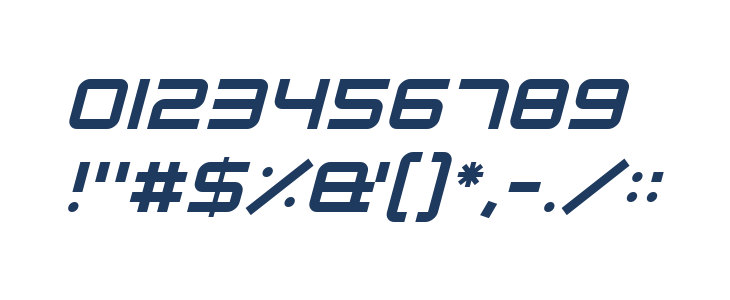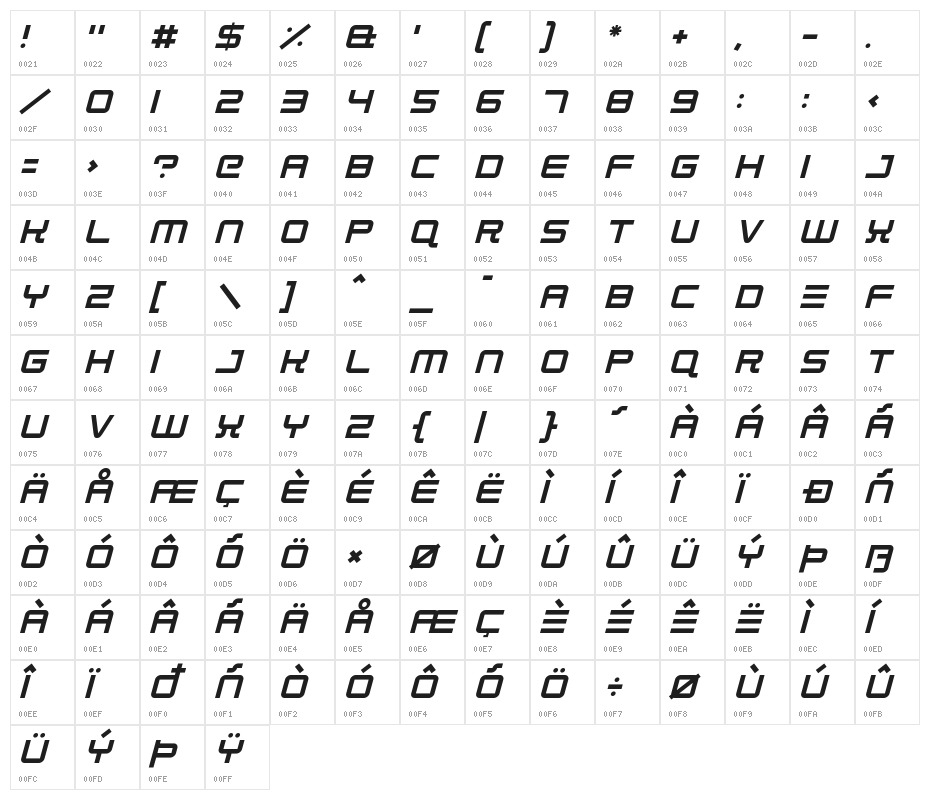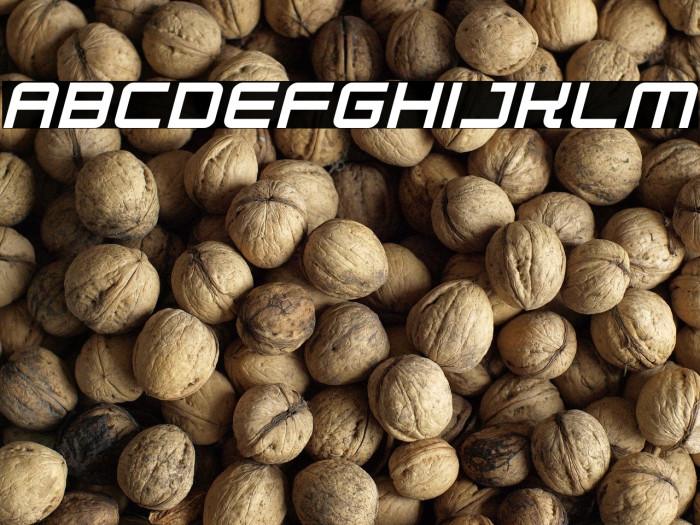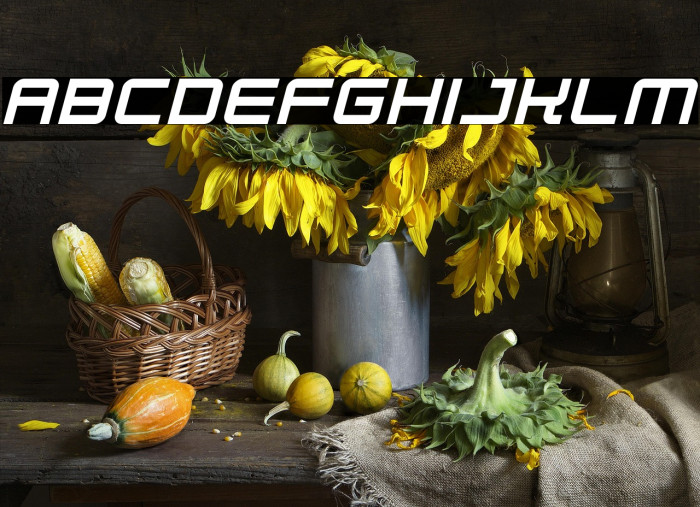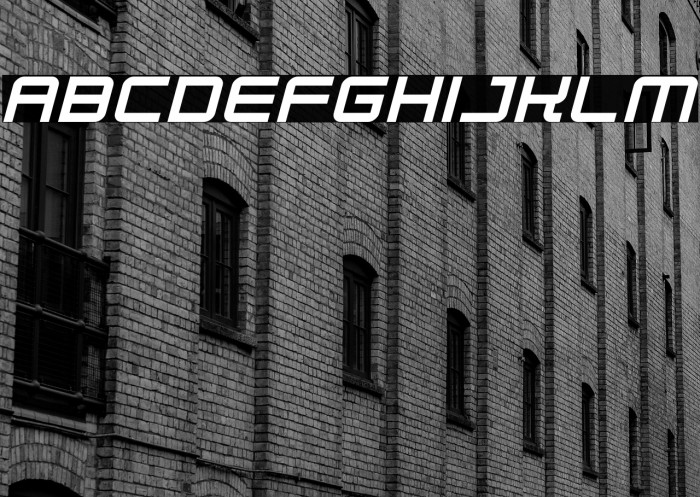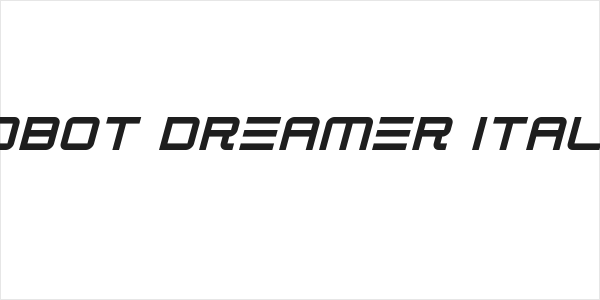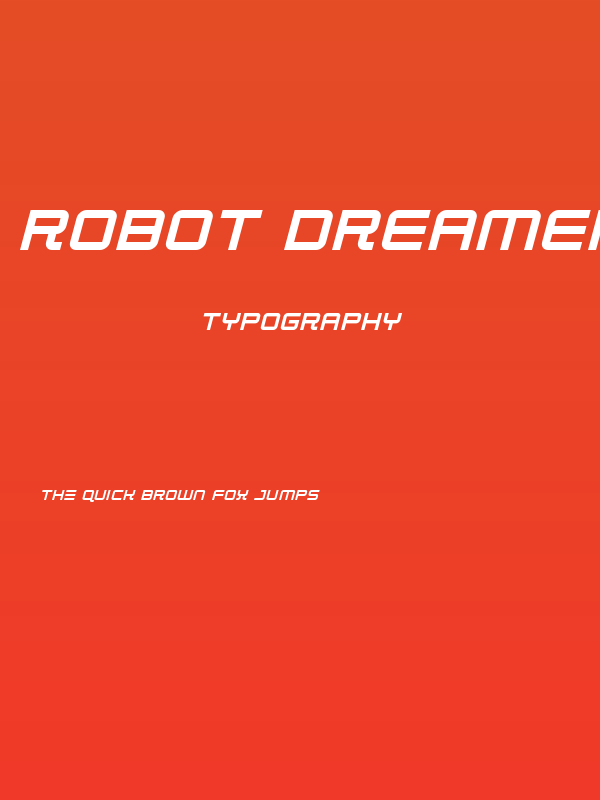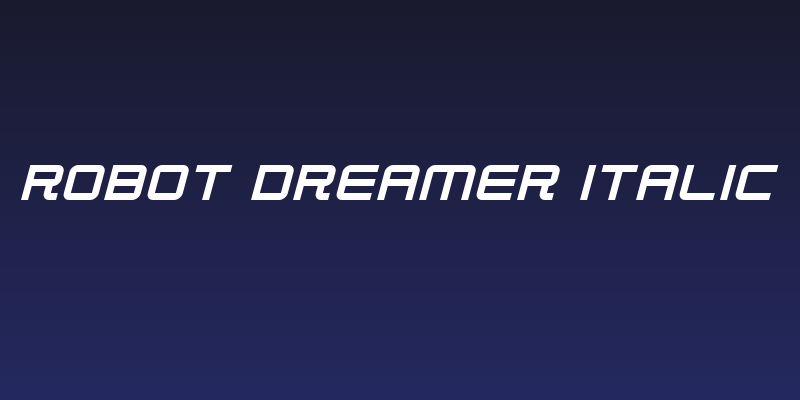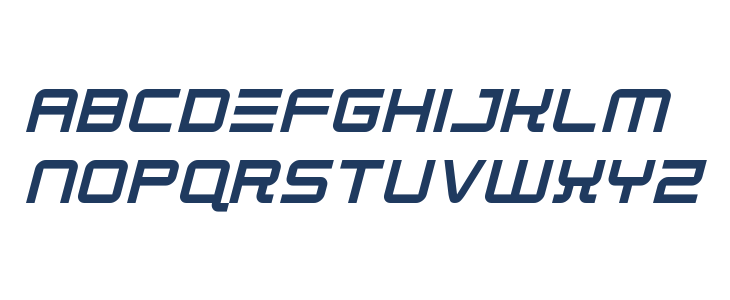
Robot Dreamer Italic Font
Robot Dreamer Italic Description
This font features a futuristic and sleek design, characterized by its italicized and slightly condensed letterforms. The strokes are consistent in weight, providing a uniform appearance across all characters. The angular and geometric shapes give it a modern and tech-inspired aesthetic, making it suitable for digital and technology-related projects. The characters are well-spaced, ensuring readability while maintaining a compact look. Its distinct style is both bold and dynamic, capturing attention with its forward-leaning posture.
| Use Case | Headlines, Logos, Digital interfaces |
| Proposed Projects | Ideal for technology branding, digital interfaces, video game titles, and sci-fi themed projects. |